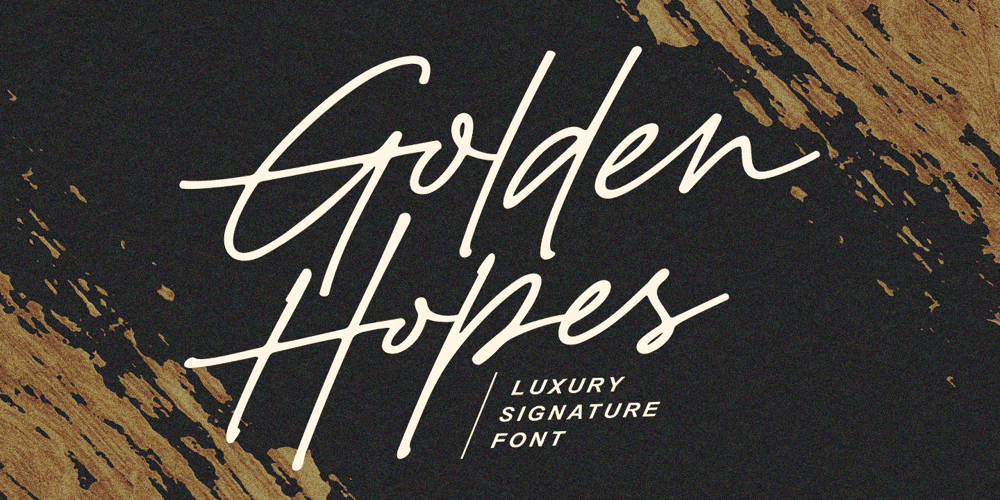
Golden Hopes Font Family was designed by Måns Grebäck and published by Mans Greback. Golden Hopes contains 4 styles and family package options. Golden Hopes is a modern signature typeface family. A high-quality handwriting font, it is perfect for creating signature logos and watermarks for your photography studio or a wedding invitation. Drawn and created in 2021, this lettering has a quick, optimistic style and a vivid personality.The script family consists of four handwritten styles: Slanted/Regular, Upright, Bold and Upright Bold. The font is built with advanced OpenType functionality and has a guaranteed top-notch quality, containing stylistic and contextual alternates, ligatures and more features; all to give you full control and customizability. It has extensive lingual support, covering all Latin-based languages, from North Europe to South Africa, from America to South-East Asia. It contains all characters and symbols you’ll ever need, including all punctuation and numbers.